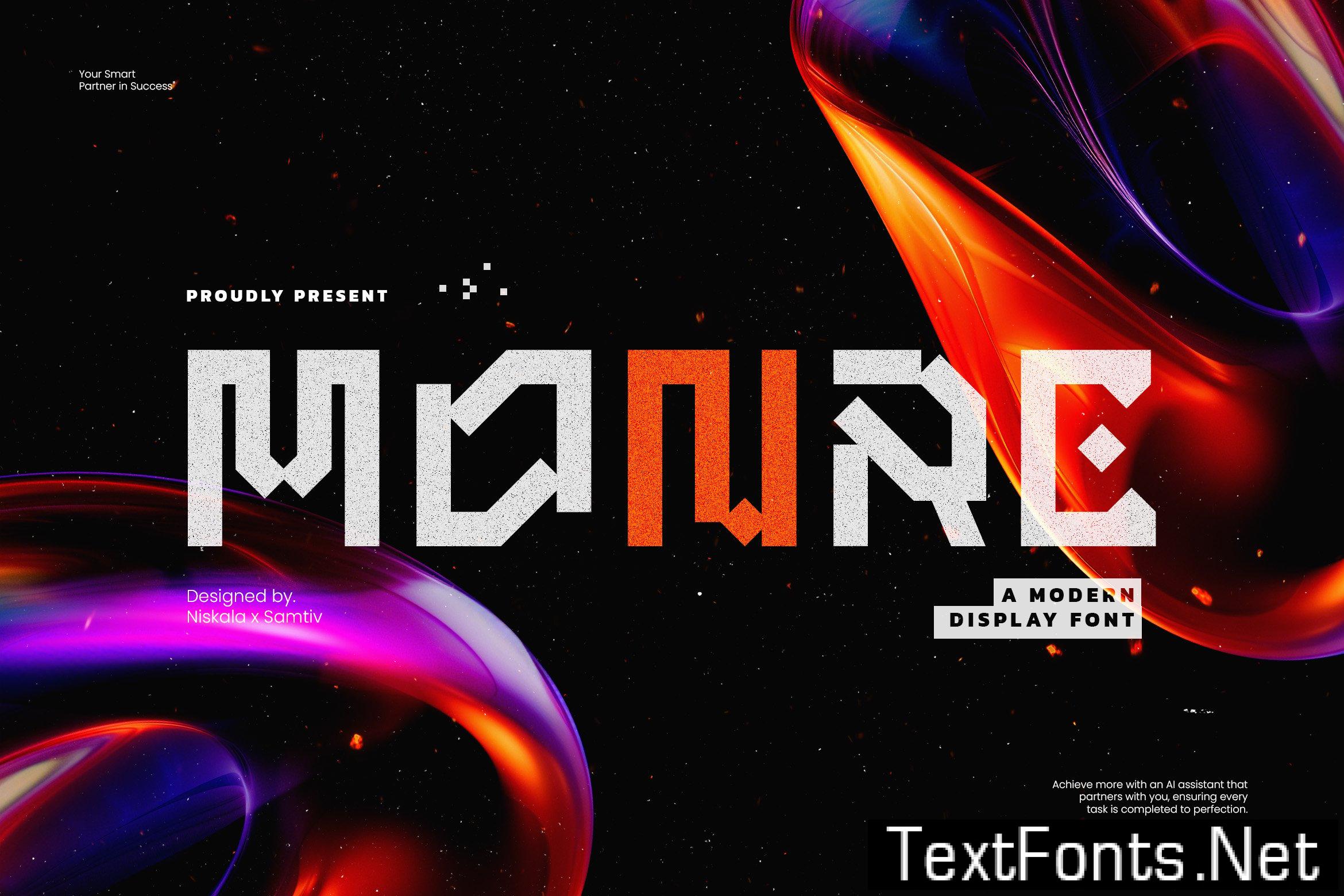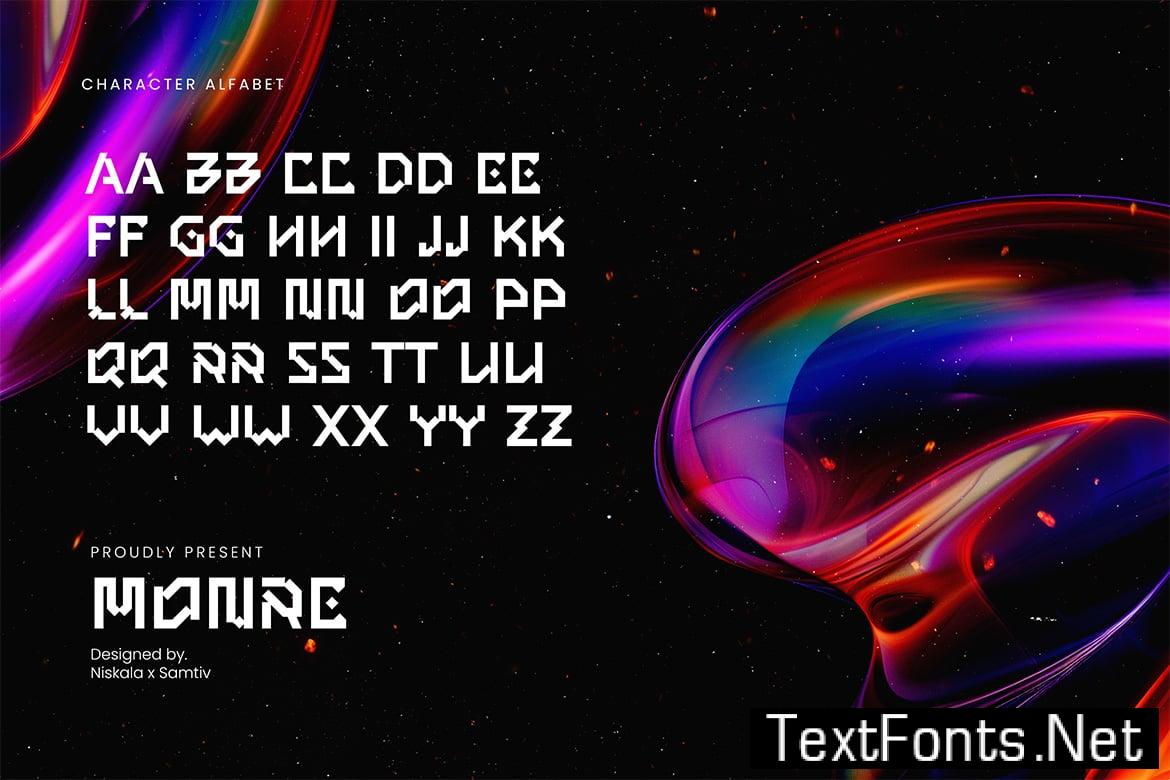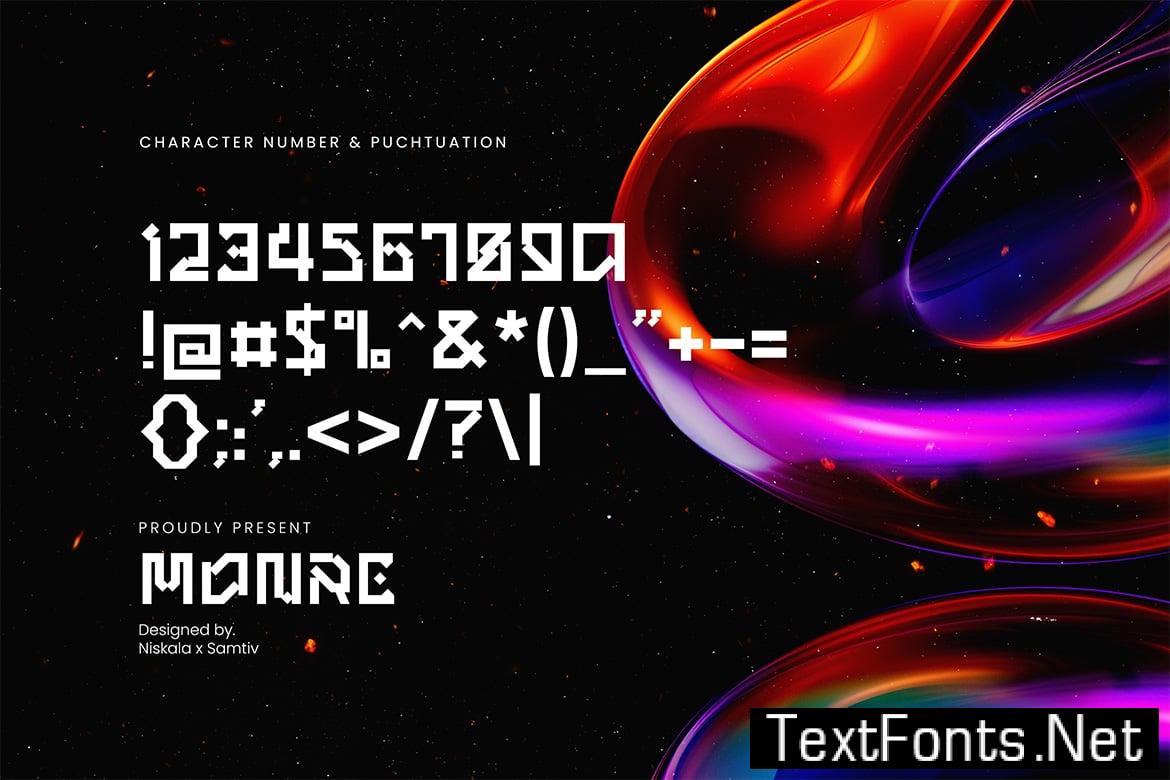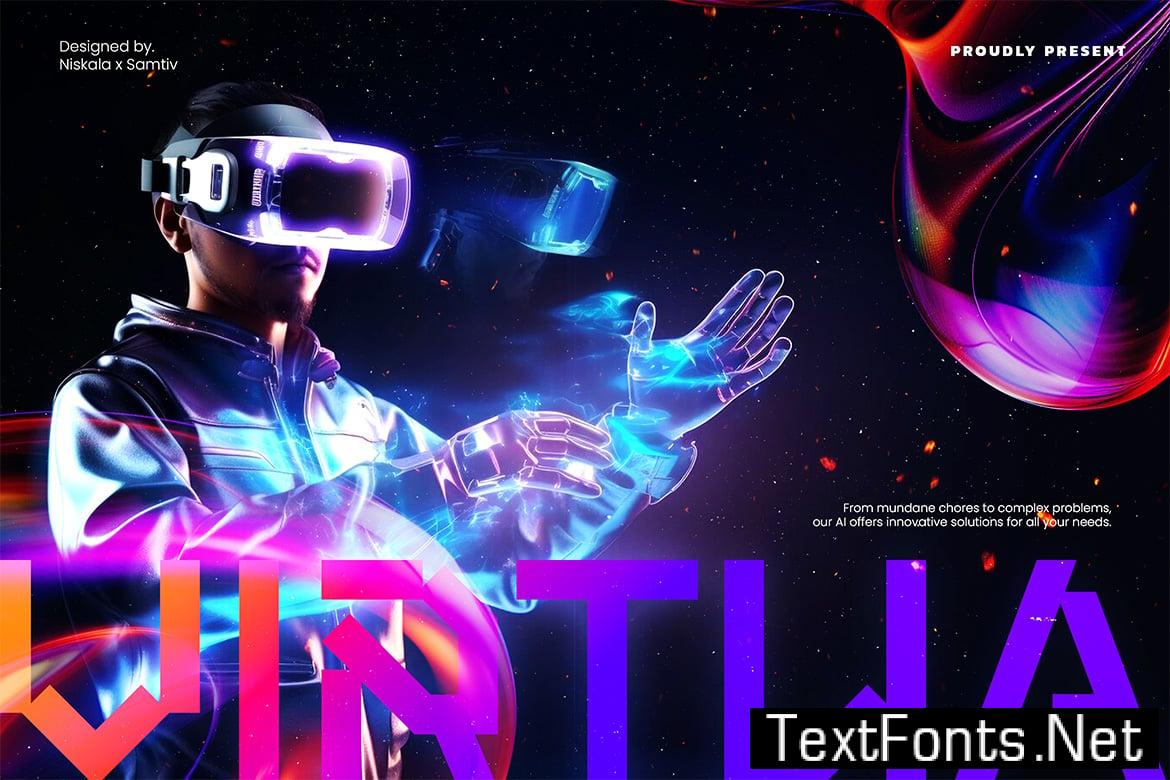
Monre – A Futuristic Display Typeface UKA334K
**Monre ** is an awesome with Futuristic cutouts, and a dynamic slant. Ideal for Poster titles, menu flyer, Packaging, Logo and monograms or other modern dynamic text. Monre compares favorably with legibility and size, creating the effect of power. Designed as a fast and dynamic font, but with a slightly different font design, check it out and grab it right away.